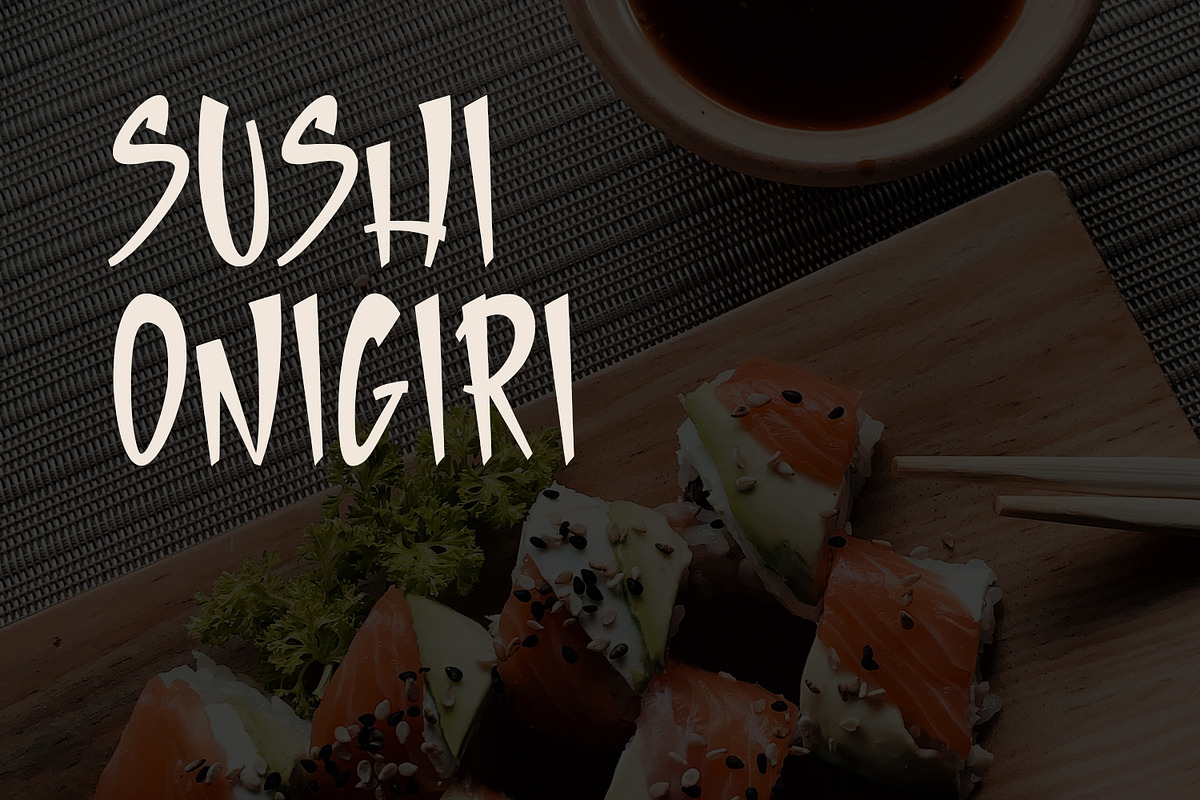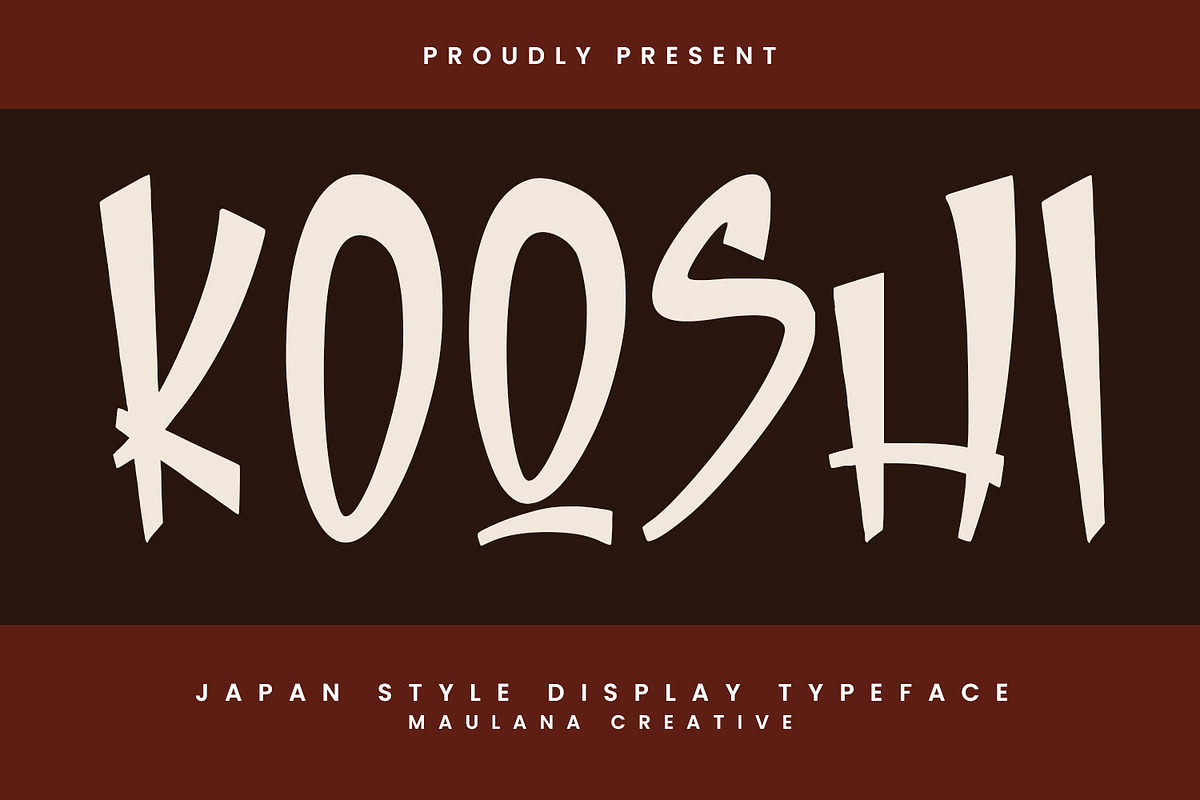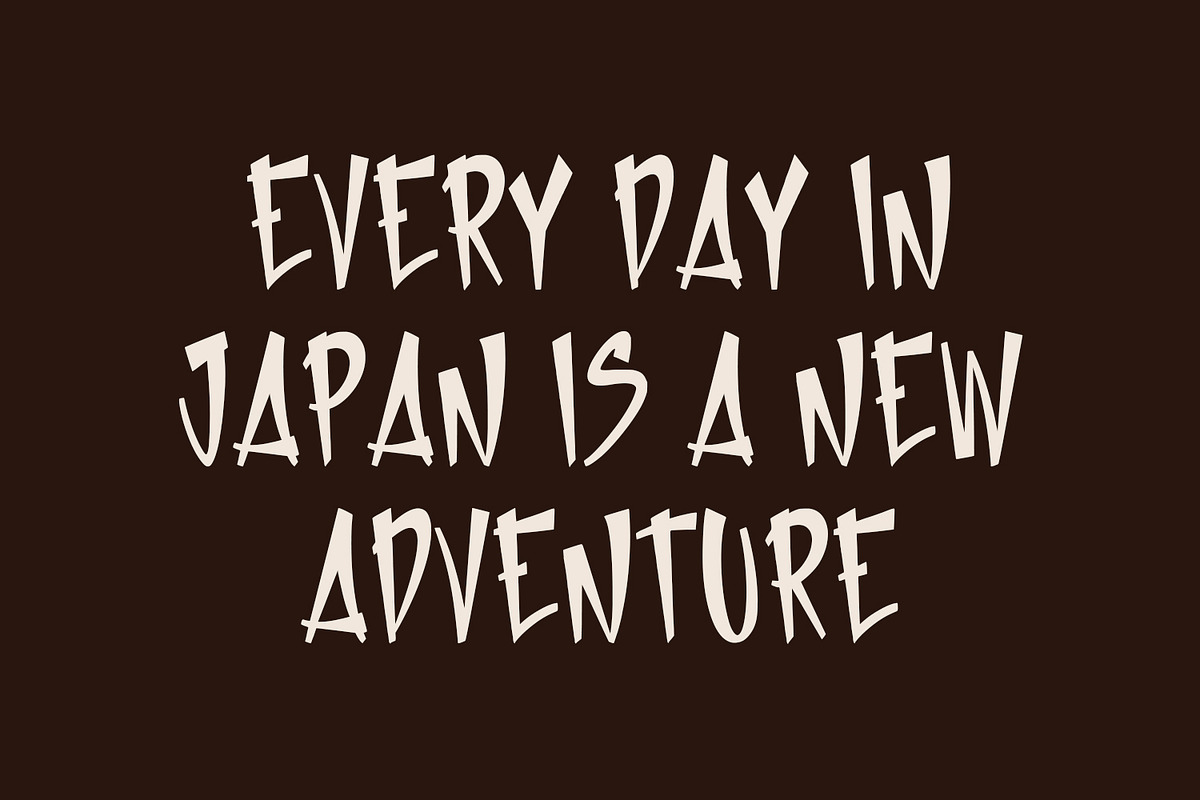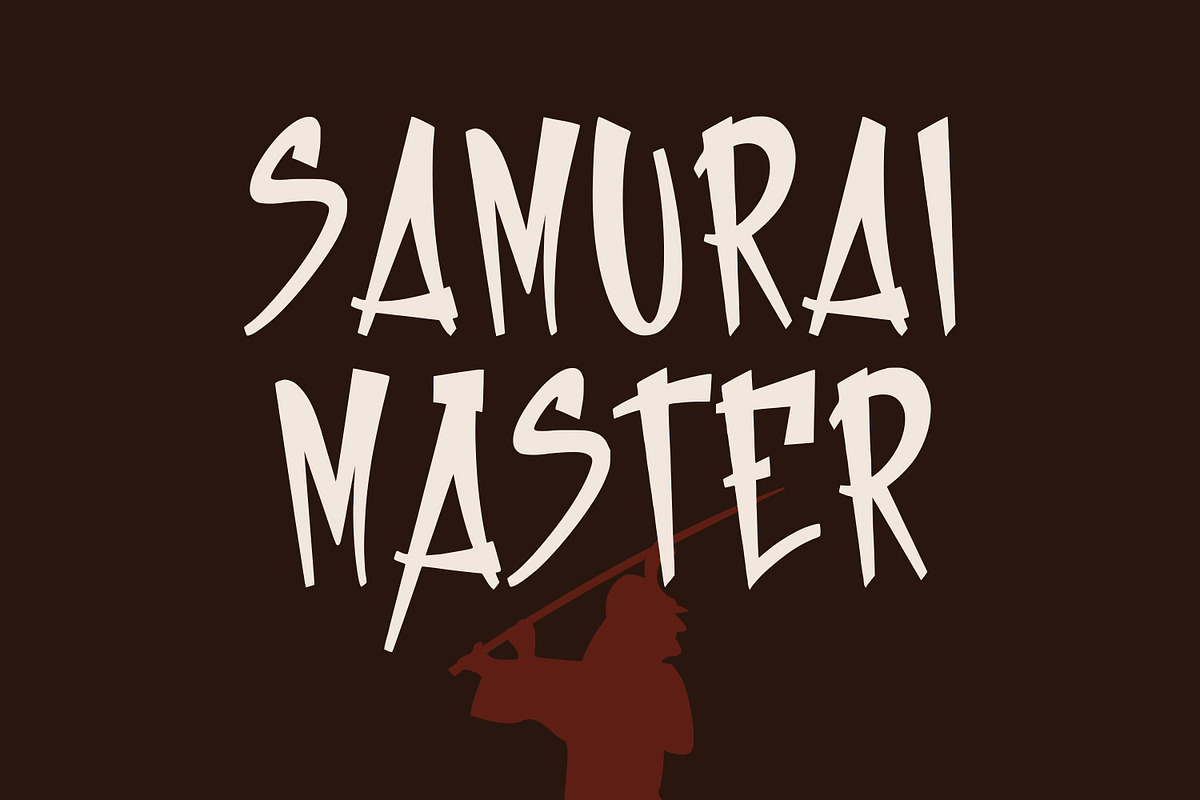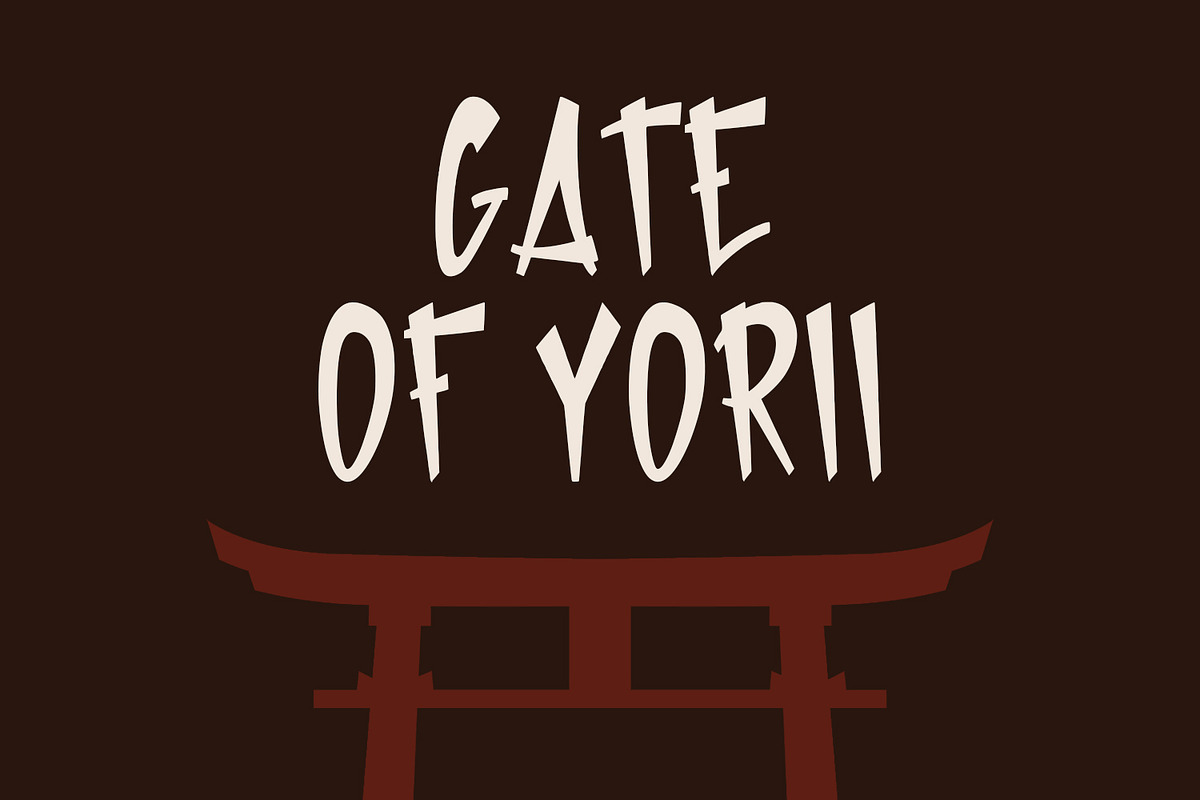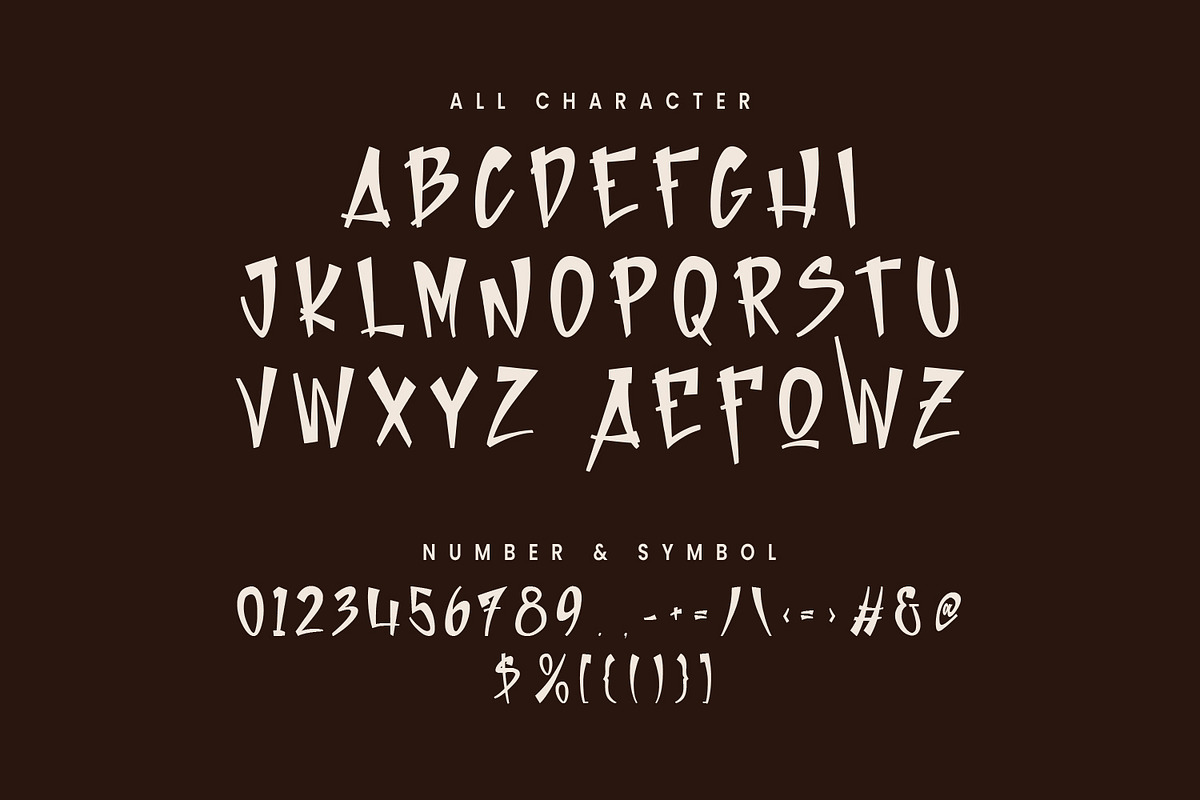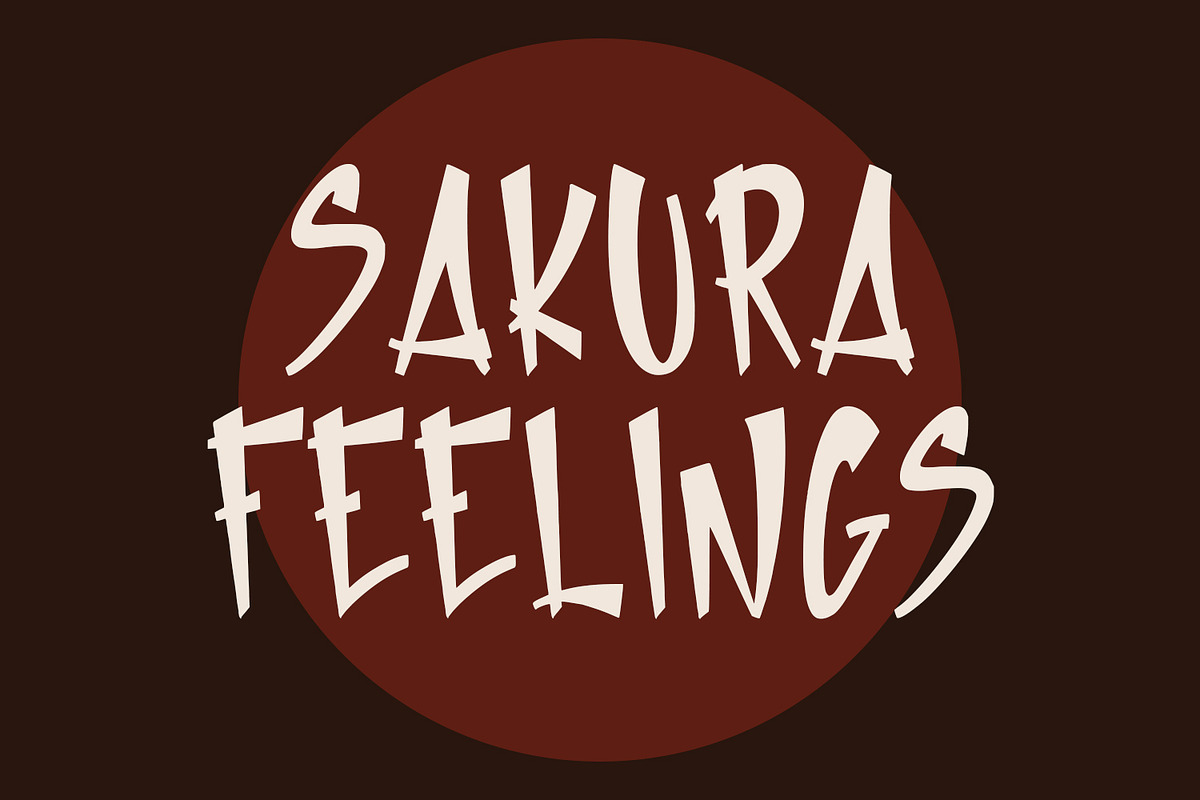
Kooshi Font Decorative Comic Japan
Kooshi font decorative comic japanese styles. Bold stroke, fun character with a bit of ligatures and alternates. To give you an extra creative work. Kooshi font decorative comic japanese styles support multilingual more than 100+ language. This font is good for logo design, Social media, Movie Titles, Books Titles, a short text even a long text letter and good for your secondary text font with script or serif. Make a stunning work with Kooshi font decorative comic japanese styles.